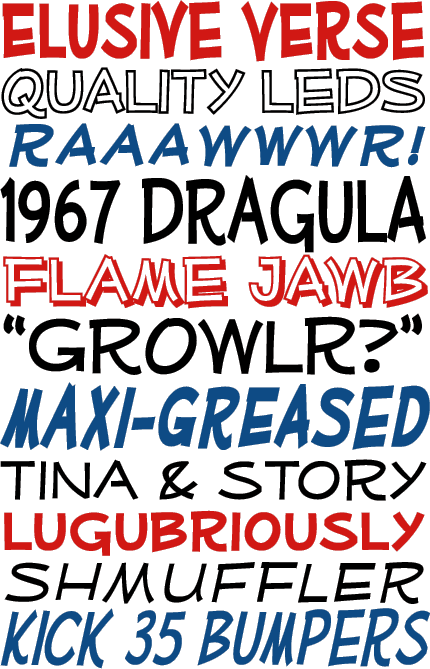
mufferaw
Big Joe Mufferaw was a legendary Ottawa valley hero; a giant of a man renowned for his strength and simple, good nature. Mufferaw, the font, aspires to the same qualities; strong but friendly and uncomplicated. The well-defined but playful shapes have a slightly rustic bent and low x-heights give the illusion of weightiness without being squat or heavy.